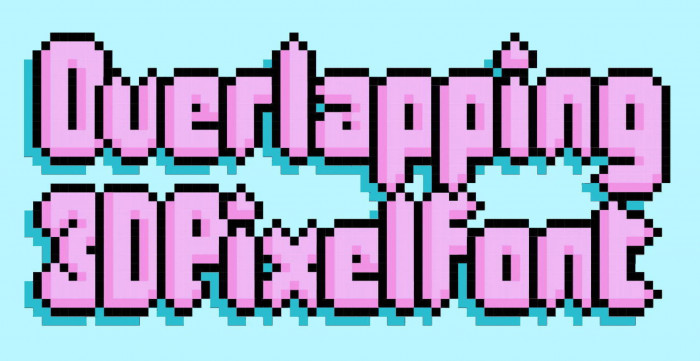
An old updated idea: overlapping glyphs, and 3D simulation with colours. See also zupra eYe/FS.
This is pretty nice. I wonder what other ideas using color fonts are possible?
Very pretty. Nice shadow effect on the picture - presumably a separate layer, not visible on the font preview. Have you seen the following book: Arcade Game Typography: The Art of Pixel Type by Toshi Omagari? 10/10
Overlapping and shadow, what a great and effective way to apply these new layers.
@Frodo7: Thank you, maestro. Glad you liked it. Indeed, the green shadow of the letters was added separately on the background. I have seen Mr. Omagari's book on the Internet and I think it is really great. It must be something like the bible for lovers of this kind of fonts.
@four: Thanks a lot, compañero. I'm still thinking about how to include the shadow of the letters on the ground in each glyph, but nothing comes to mind. It would be very cool if it could be done.
? Blue like the sky, green like the grass, red like the blood, pink like... bubblegum.